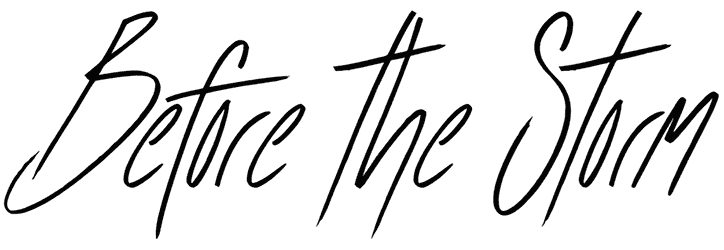
Before the Storm Font
Elegant and personalized design of Before the Storm makes your art projects instantly professional and jaw-dropping. This handwritten font features a set of prominent elements with the handwriting of an adult, creating an entirely human atmosphere in your writing and providing you with a comprehensive set of paths to implement ideas.
With this script font, you can increase your design score and upgrade to a higher level in the execution of letters, wedding cards, and invitations.